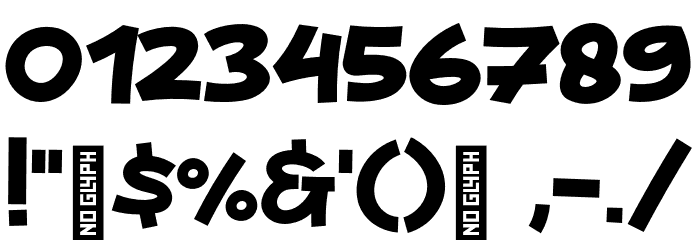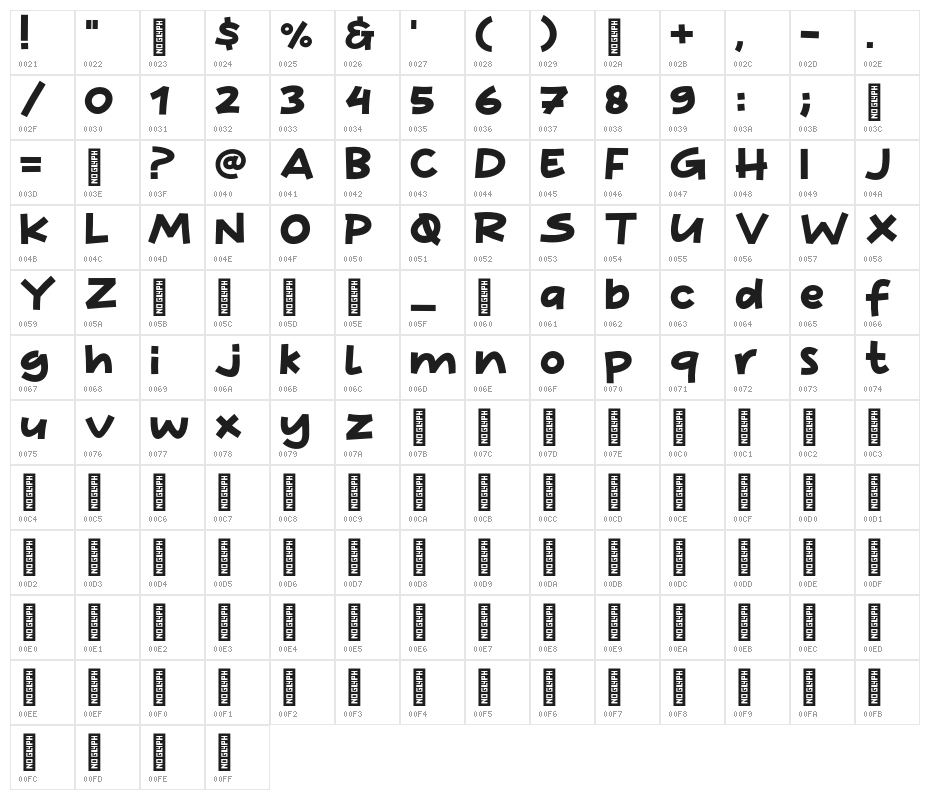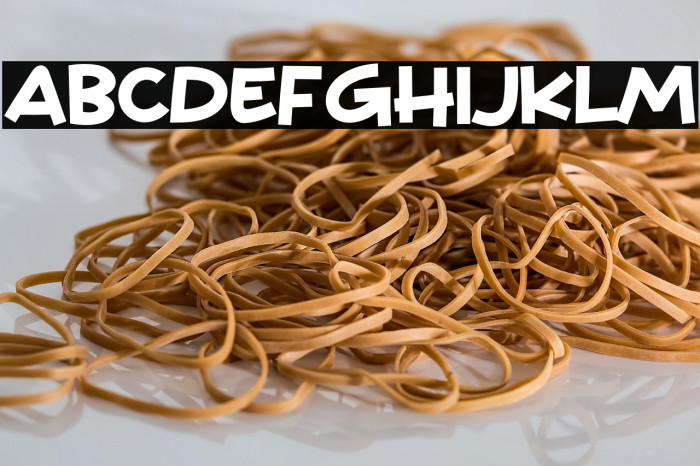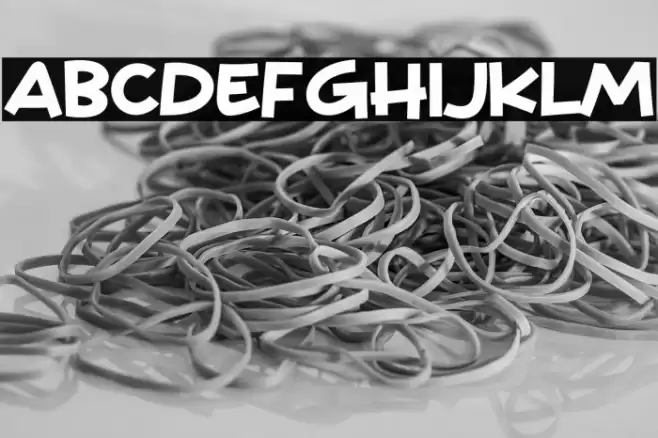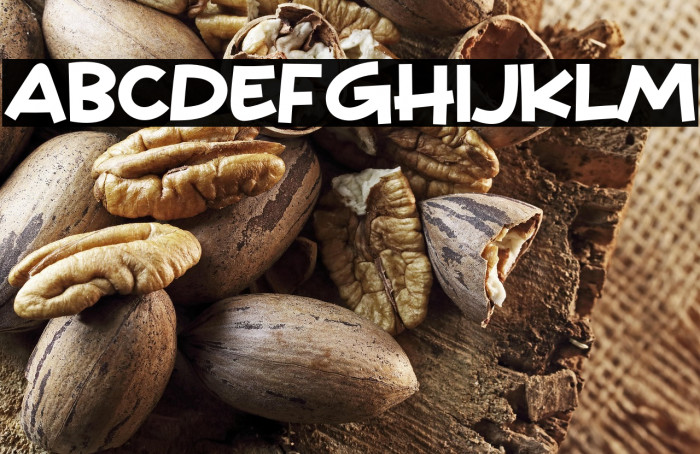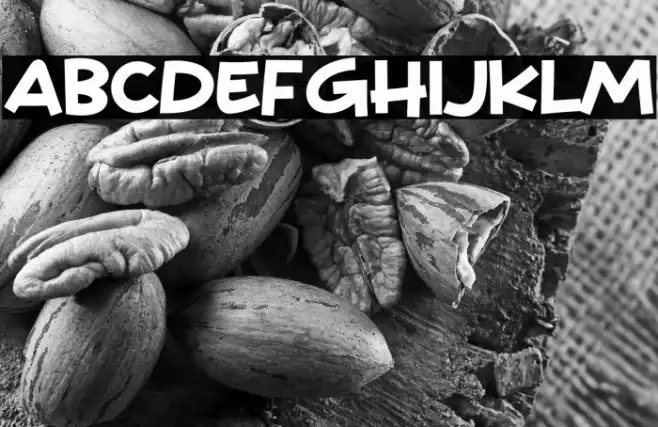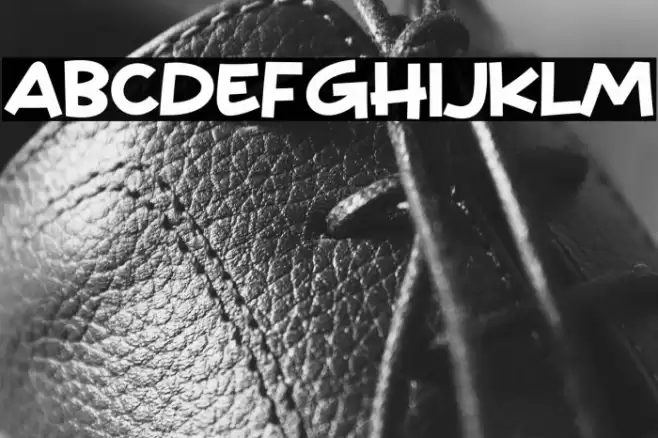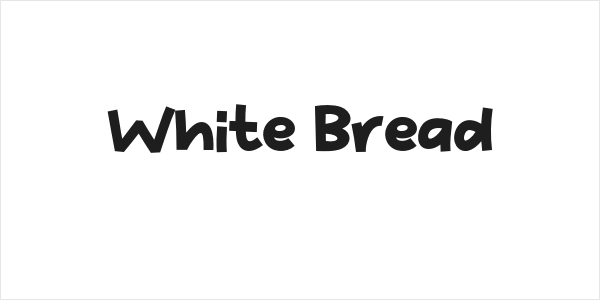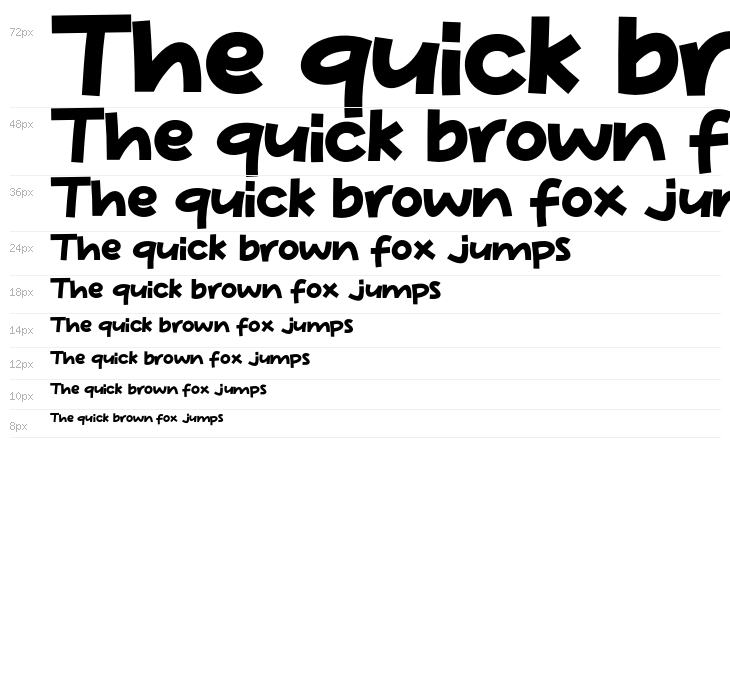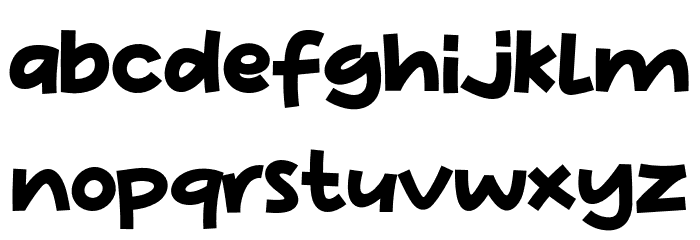
White Bread Font
White Bread Description
This playful and bold font features a unique, hand-drawn style with exaggerated curves and a slightly irregular baseline, giving it a whimsical and informal appearance. The uppercase and lowercase letters maintain a consistent weight, providing a cohesive look across the alphabet. The numbers and special characters follow the same playful design, making them stand out with their bold presence. The font's thick strokes and rounded edges contribute to its friendly and approachable feel, making it suitable for a variety of creative projects.
| Proposed Projects | Ideal for children's books, comic strips, playful branding, and casual invitations. |